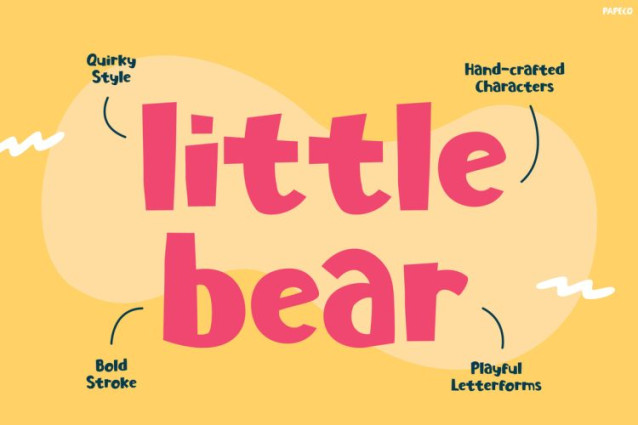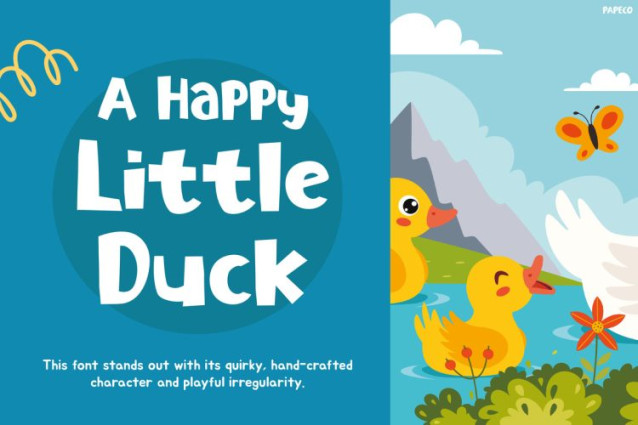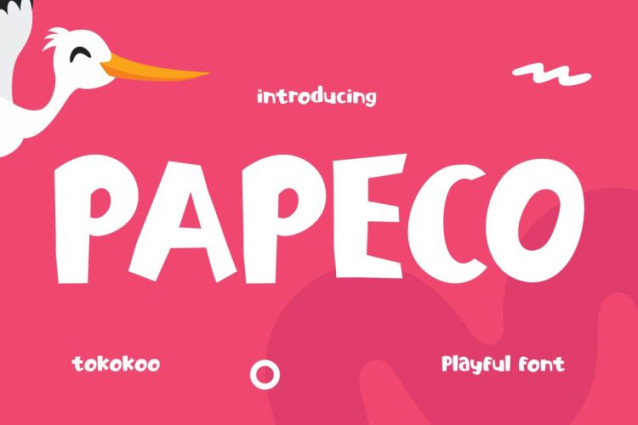
Papeco Font
Papeco Font is a charming and playful display typeface created to bring warmth, fun, and imagination into children’s design projects. Its soft rounded shapes, friendly curves, and slightly hand-drawn character make the font feel joyful and approachable. Because of its playful style, the typography instantly creates a cheerful atmosphere. As a result, headlines look lively, expressive, and easy for kids to read. Moreover, the cute cartoon-inspired letterforms add a storytelling feel that perfectly matches themes like animals, adventures, and magical stories. Papeco turns simple words into delightful visual elements that capture attention and spark curiosity.
Kids Font Papeco blends playful handwritten style with smooth rounded letterforms. Each character is carefully designed to feel friendly, soft, and full of personality. Therefore, the font creates a fun visual rhythm while maintaining clear readability.
Furthermore, Papeco works beautifully in projects that require a bright and imaginative mood. For example, it looks perfect in children’s books, storytelling graphics, educational posters, and playful branding designs. In addition, the expressive style makes it ideal for colorful layouts, social media graphics, and creative promotional materials. Because of its versatility, the font performs well in both digital and print design environments.